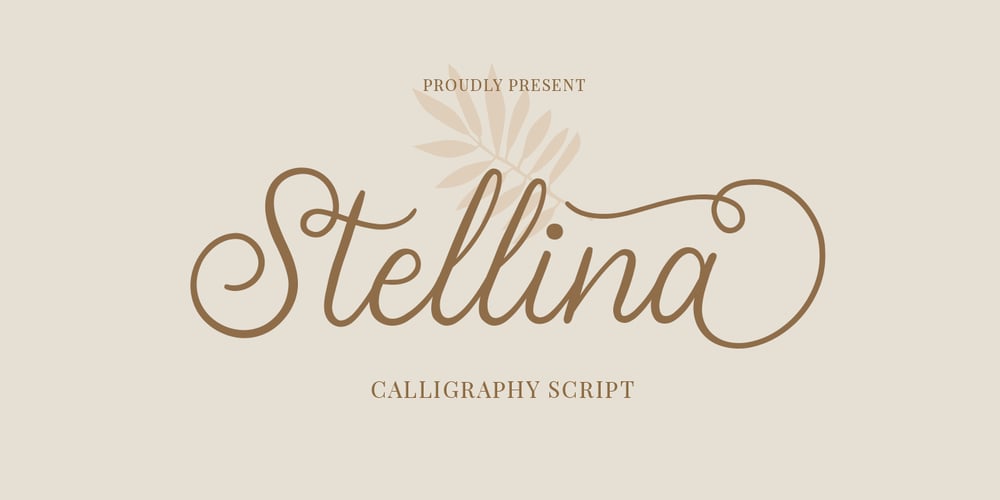
Stellina
Stellina font
Stellina Font Family was designed by Jos Gandos and published by Jos Gandos. Stellina contains 1 styles and family package options. Stellina Calligraphy Script Font with elegant and classy looks. This font will make your design look elegant, natural and stylish.Stellina Font is perfect for any awesome projects such as photography, watermark, quote design, social media posts, advertisements, logos & branding, invitation, product designs, label, stationery, wedding designs, product packaging, special events or any project that need handwriting taste.